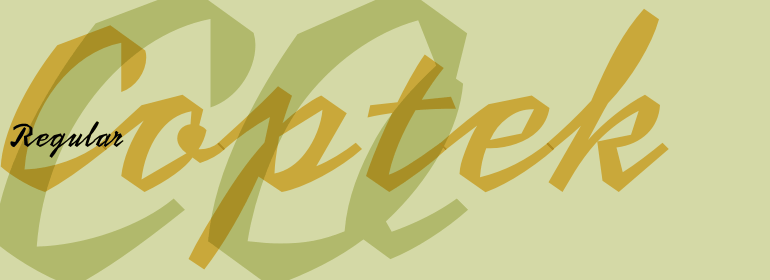
Coptek™
Coptek is the work of David Quay and gets its name from the high tech look imposed on the design of copperplate script. The capitals are initials which fit well with a lower case alphabet whose letters join in the style of true handwriting.